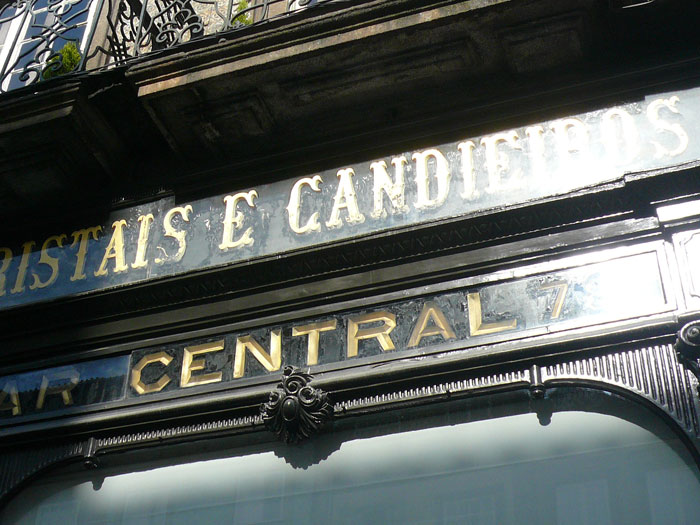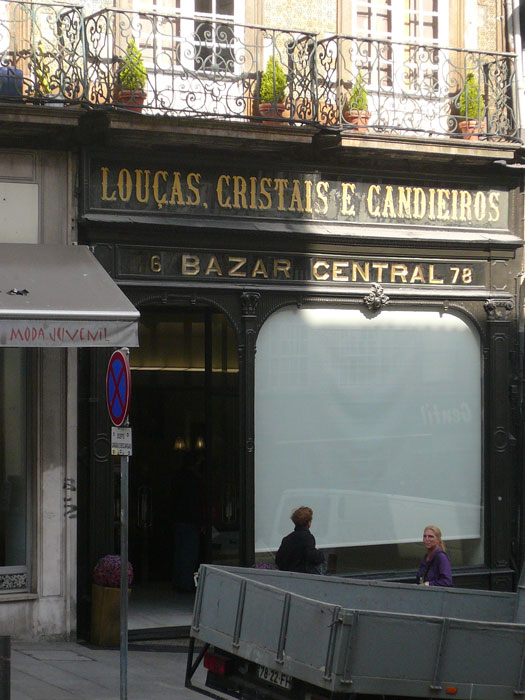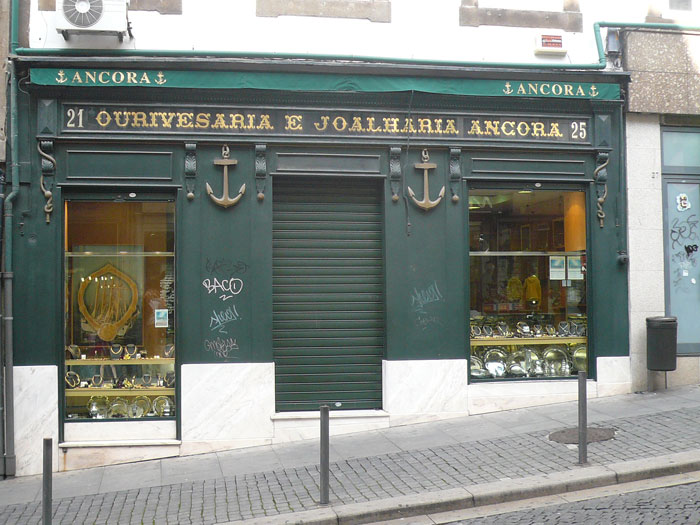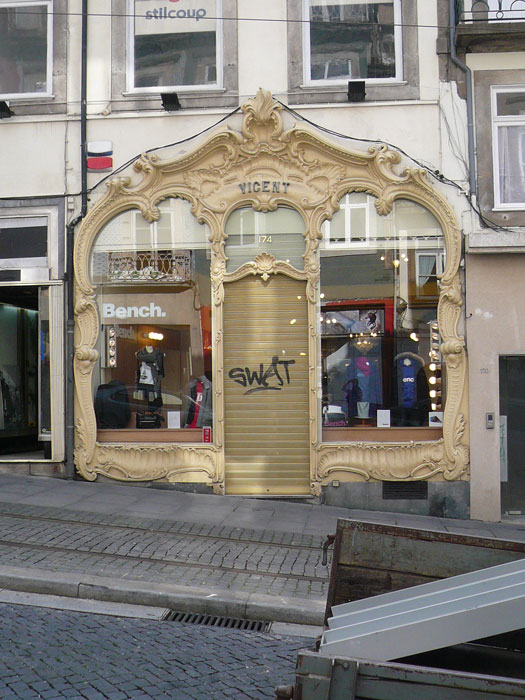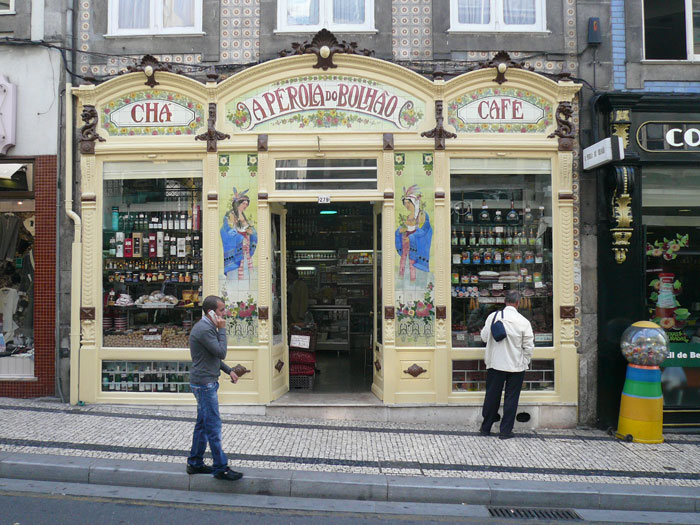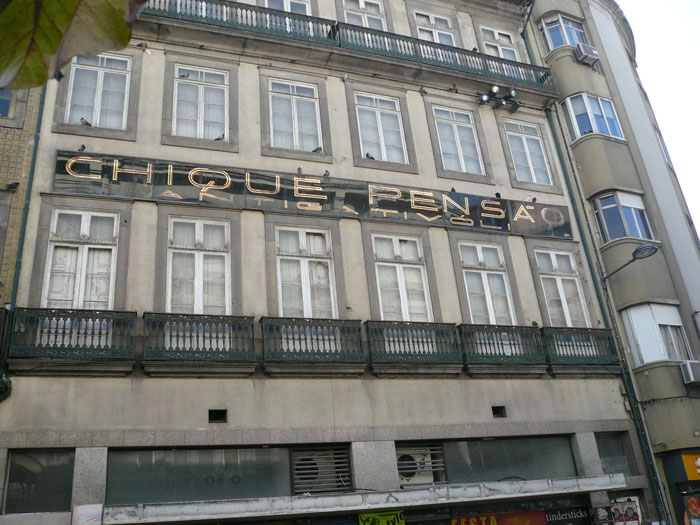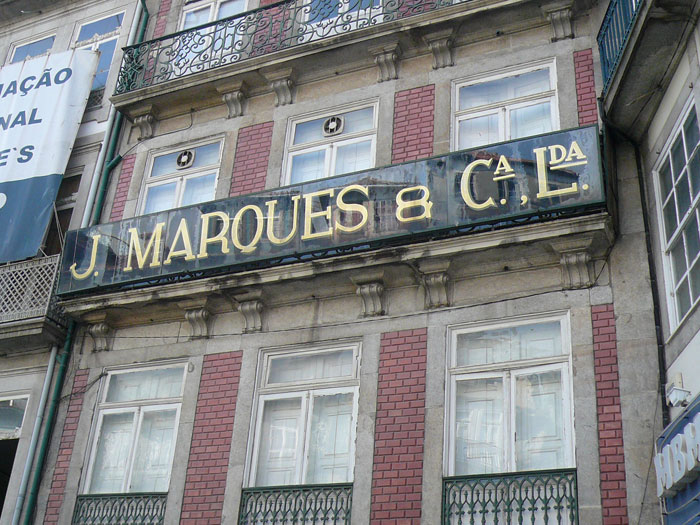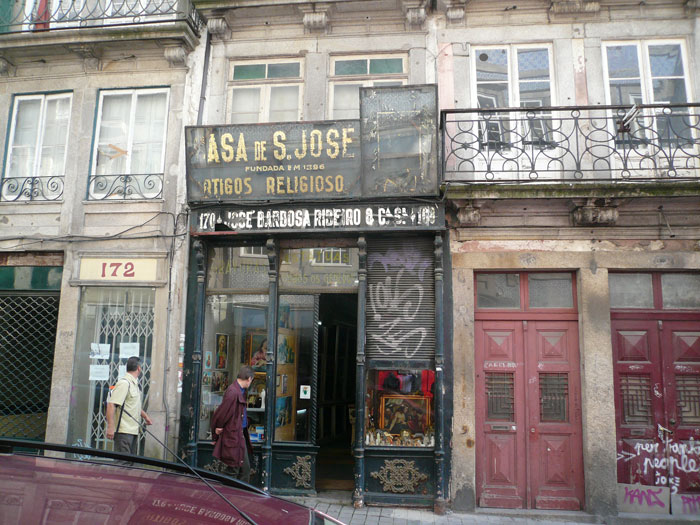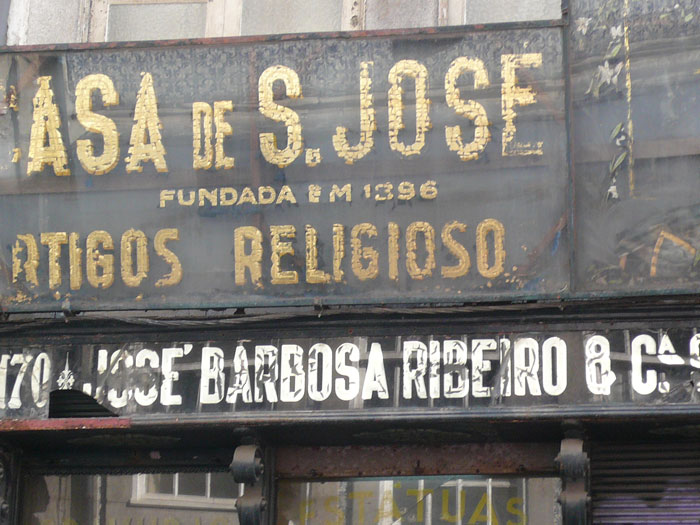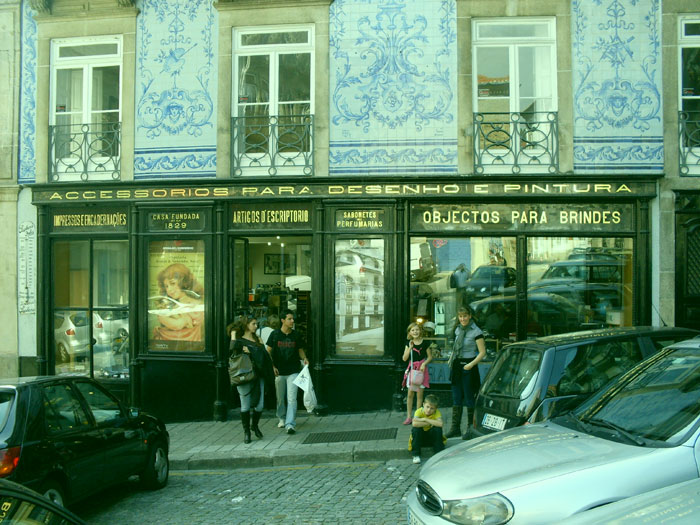
Glass signs of Porto
On the recomendation of fellow letterhead Alan Brindle, my family and I decided to visit Porto, Potugal to check out it's great shopfronts and prolific glass signage.
The city is rich in 19th century shopfront, elaboratley decorated with sumptuous mouldings, carvings and gold leaf. There are also many examples of glass signs still in existance. Unusually many are mirrored with silver nitrate as opposed to gold leaf and from what I could tell this tradition has continued untill recent times. Many city professionals such as doctors and dentists have small glass signs mirrored in a utalitarian style of lettering rather than having brass plaques like we would in the UK.
These are awesome Ash...But is dishearting to see the amount of tagging we see there as well.
nice photos. Interesting to see how well those have held up.
Would love to see the storefront to the right of the Bohlo Cafe.
Thanks for the response guys, Pat there is a lot of tagging which is so unsightly but who knows in 100 years perhaps people will be posting pictures of the "wonderful vintage lettering" of Porto tagging!